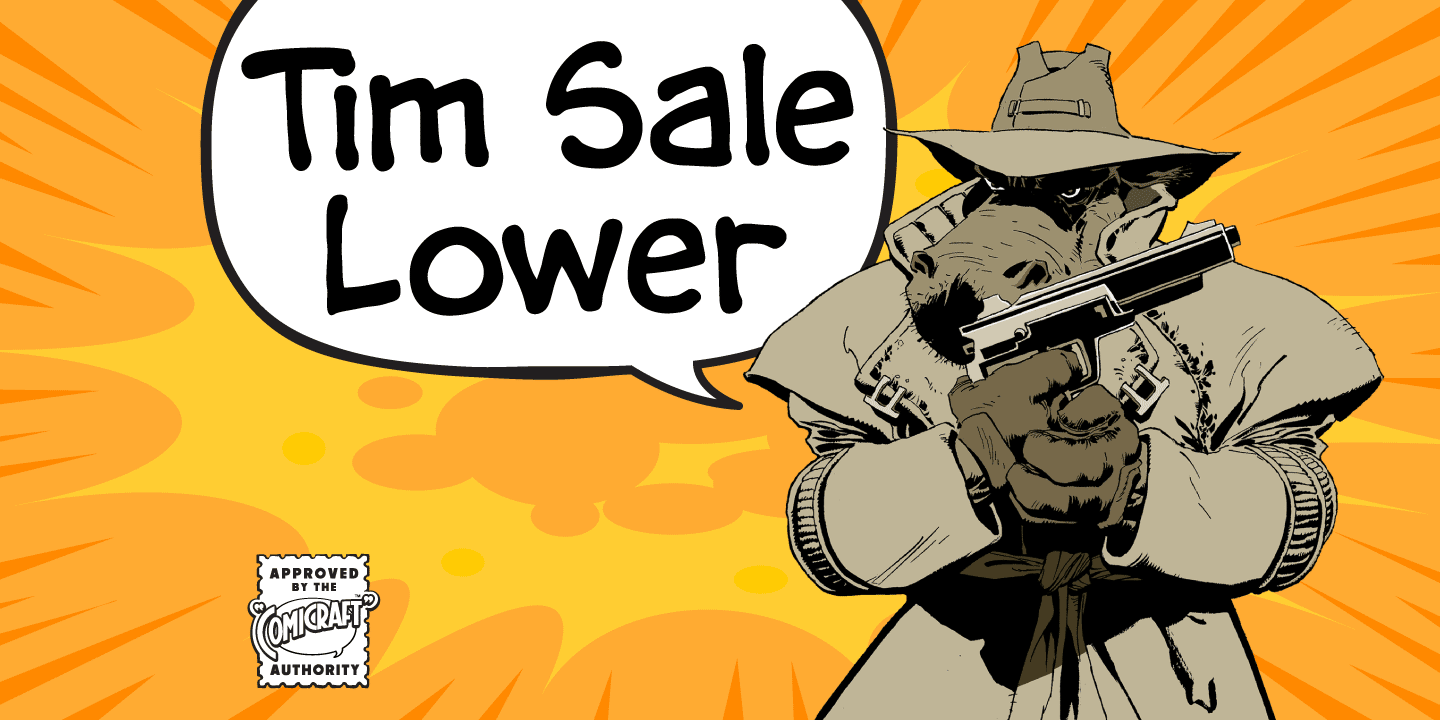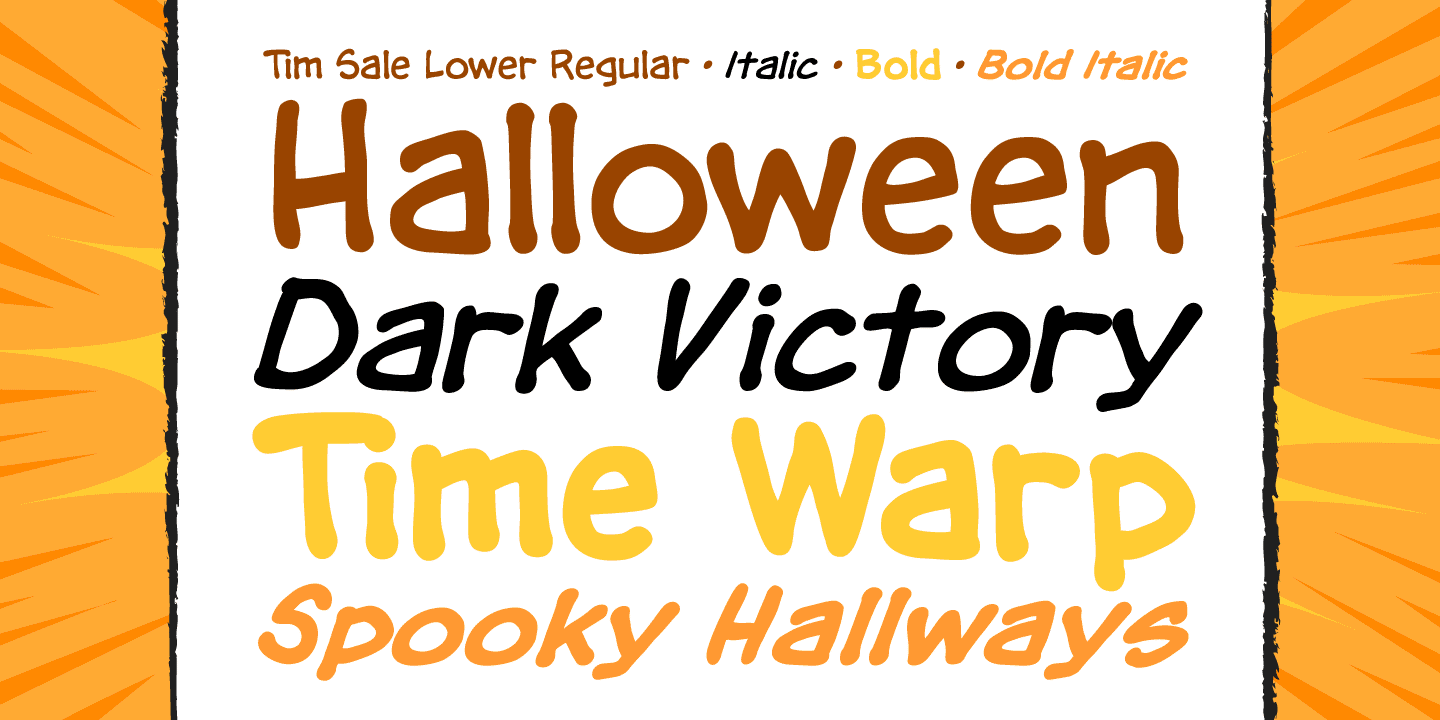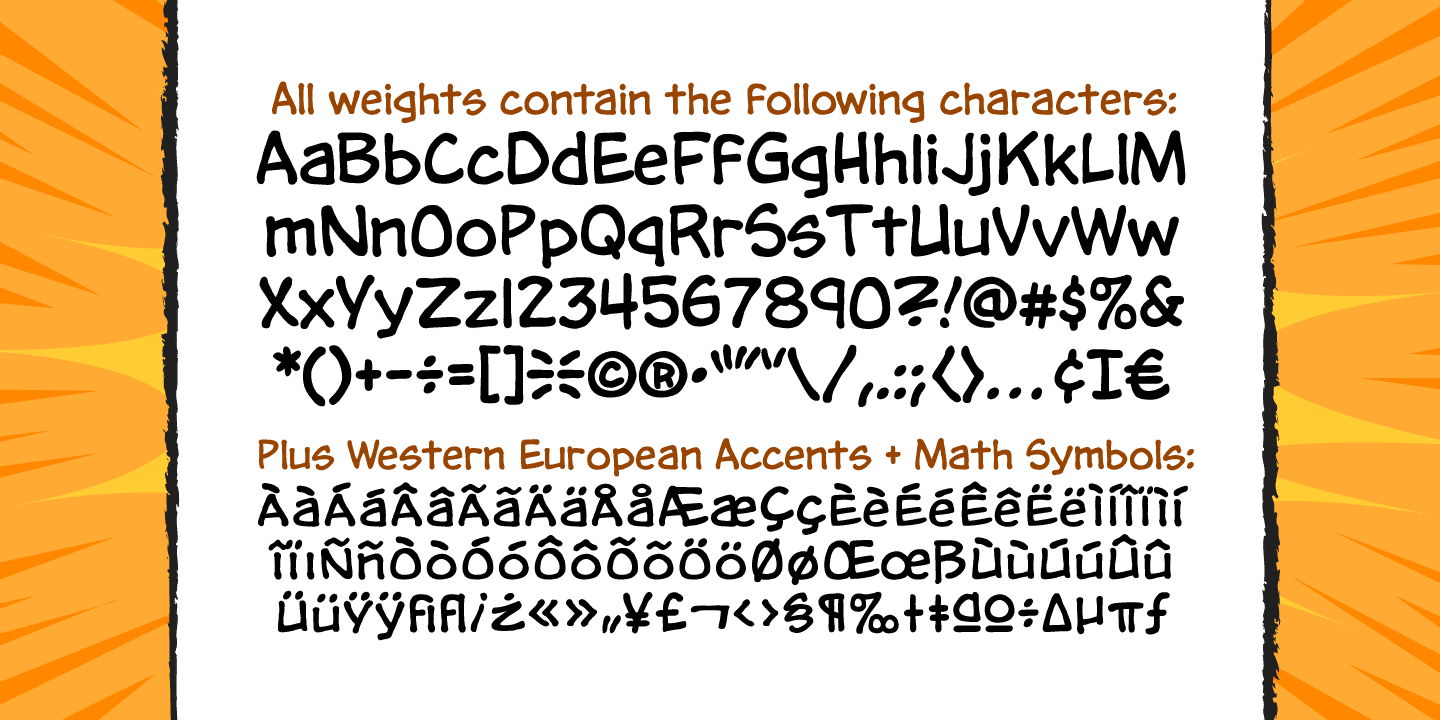
Tim Sale Lower
Font Family by Comicraft Fonts
If you're familiar with the work of Eisner Award winning artist Tim Sale, you'll also be familiar with the soft curves and hard edges of the characters he brings so vividly to life in the pages of GRENDEL, BATMAN and SUPERMAN. Now you can get to know a selection of the characters Tim has been working on his whole life, and Comicraft has been kind enough to arrange them in alphabetical order for you!
Based on Tim's own hand lettering work in the lost Dark Horse classic, BILLI 99, the Tim Sale font brings together the class and finesse of Hunter Rose, the elegance and charm of Bruce Wayne and the honesty and trustworthiness of Clark Kent. Don't go into the big city alone at night without it.